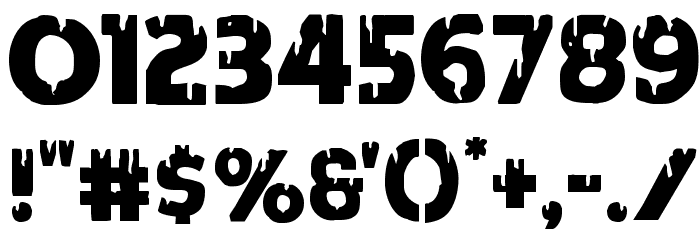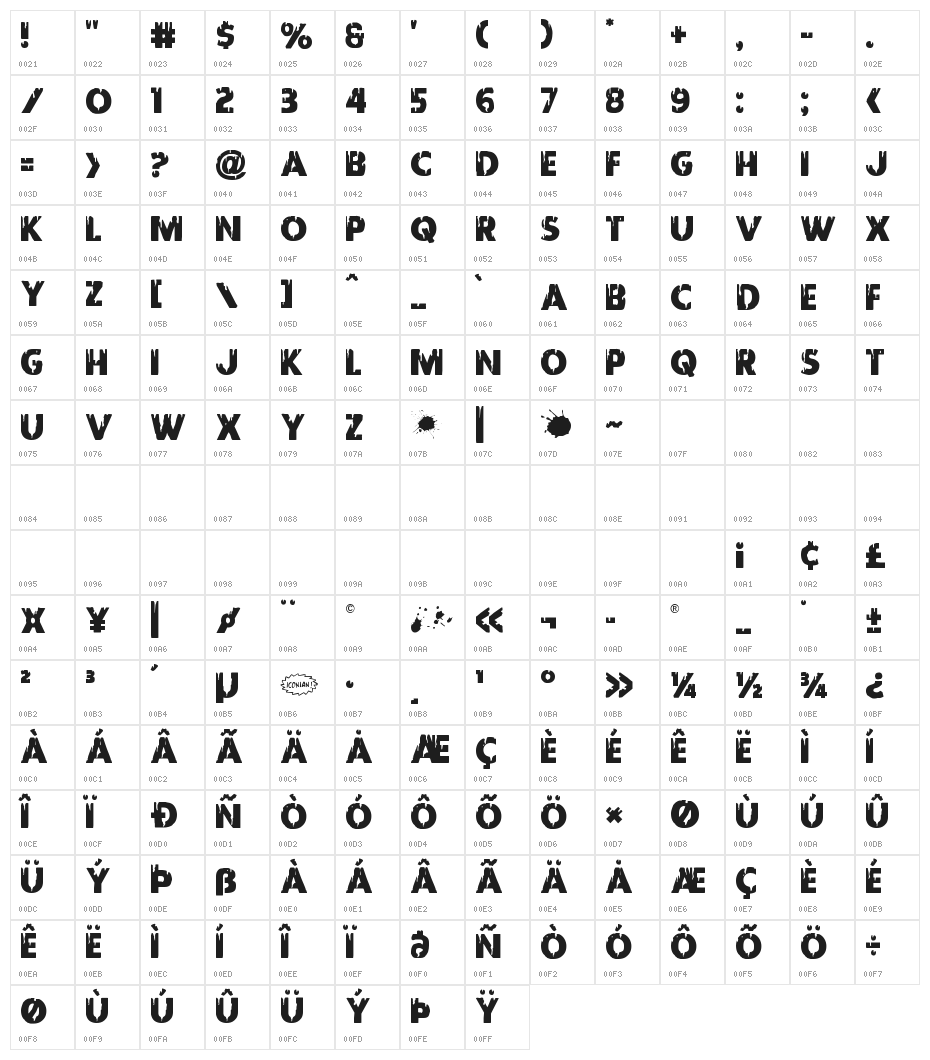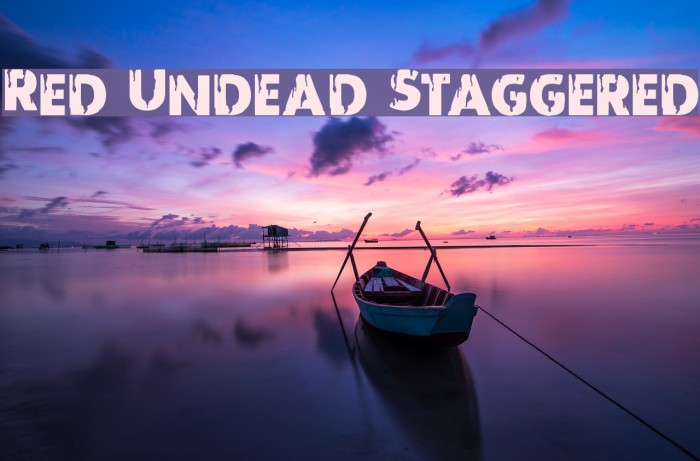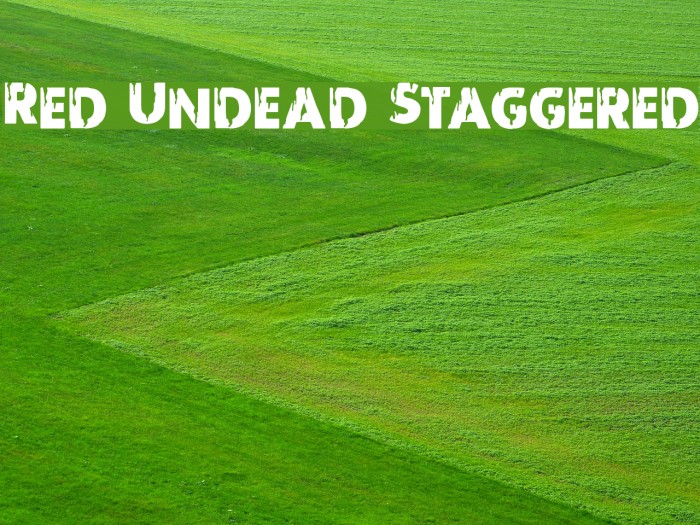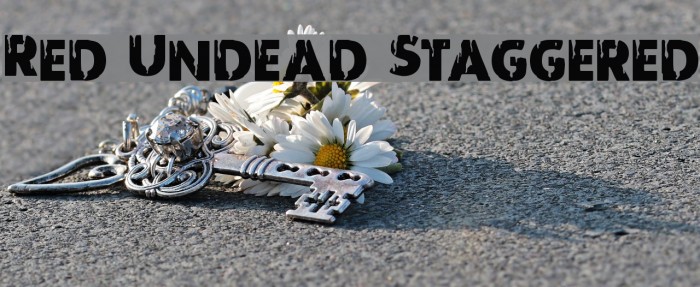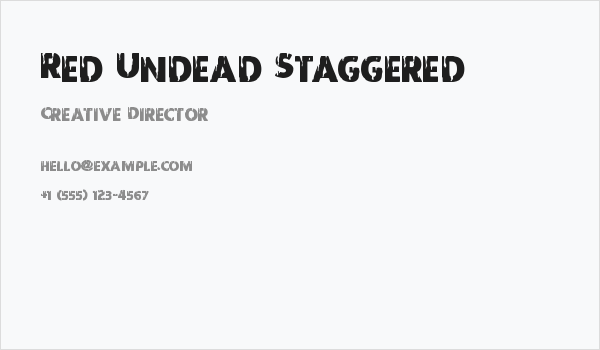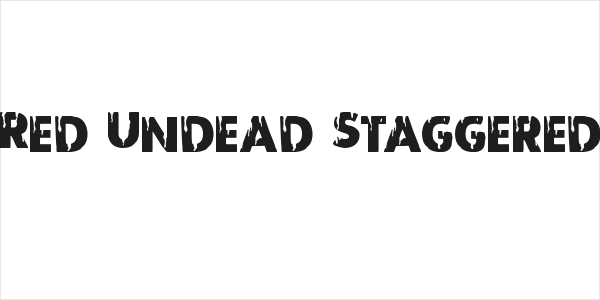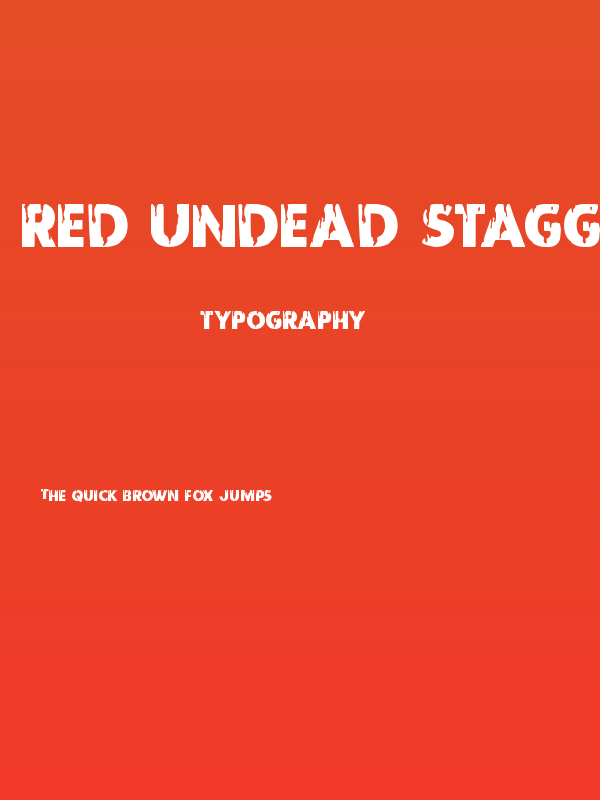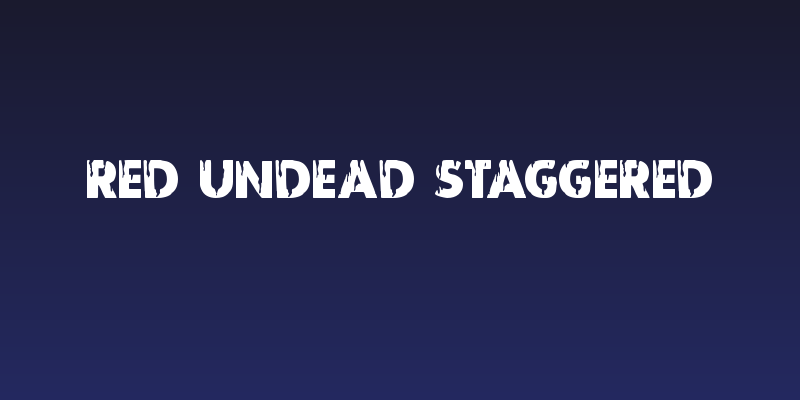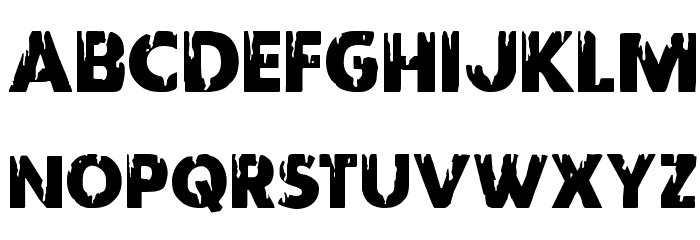
Red Undead Staggered Font
Red Undead Staggered Description
This font features a bold and distressed design, giving it a rugged and edgy appearance. The characters are heavily stylized with rough, uneven edges that create a sense of movement and chaos. This design choice makes it ideal for projects that require a strong visual impact. The uppercase and lowercase letters maintain a consistent style, with numbers and special characters following suit. The font's unique texture and bold presence make it stand out, perfect for grabbing attention in various creative contexts.
| Proposed Projects | Ideal for horror-themed posters, video game graphics, edgy branding, and Halloween event promotions. |